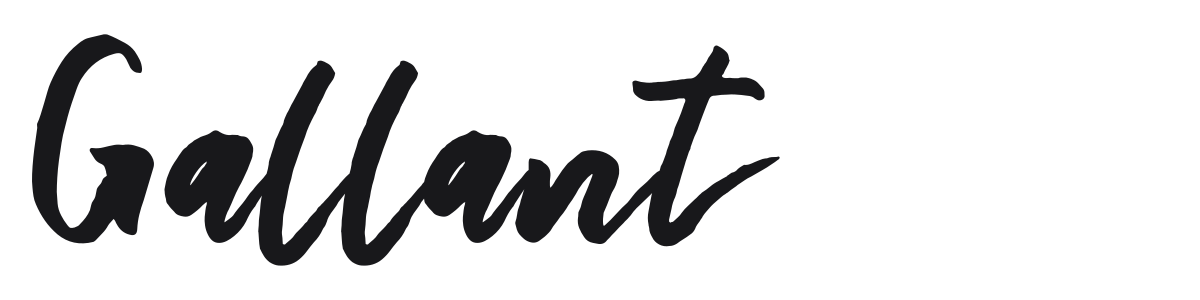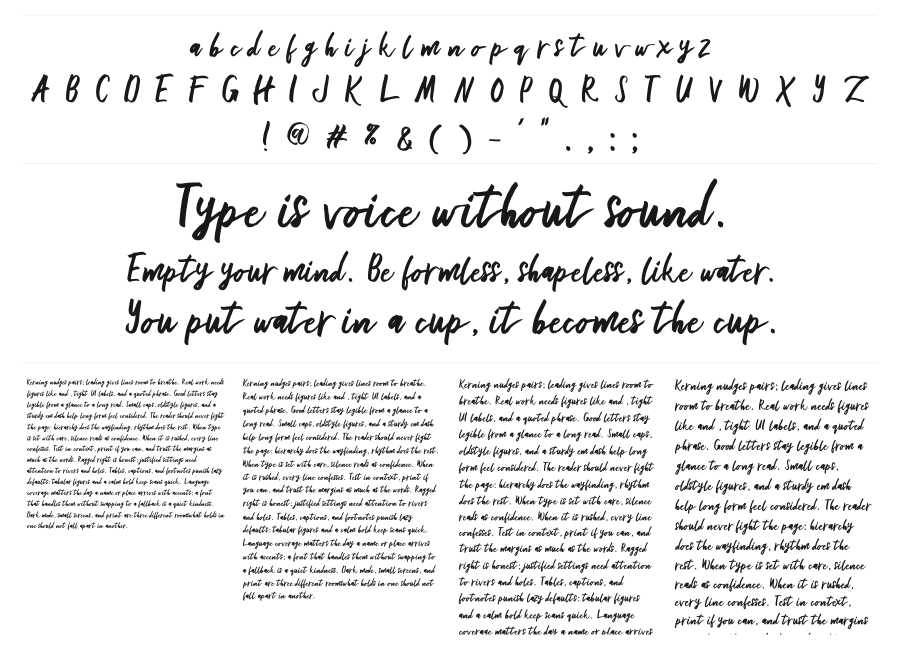
Gallant
Gallant is a contemporary brush script with the raw, inky energy of real hand-lettering. Thick swelling downstrokes meet thin wispy upstrokes, and the loose connections between letters give it an unforced, spontaneous feel. It works well for branding that wants warmth and craft without looking stiff.